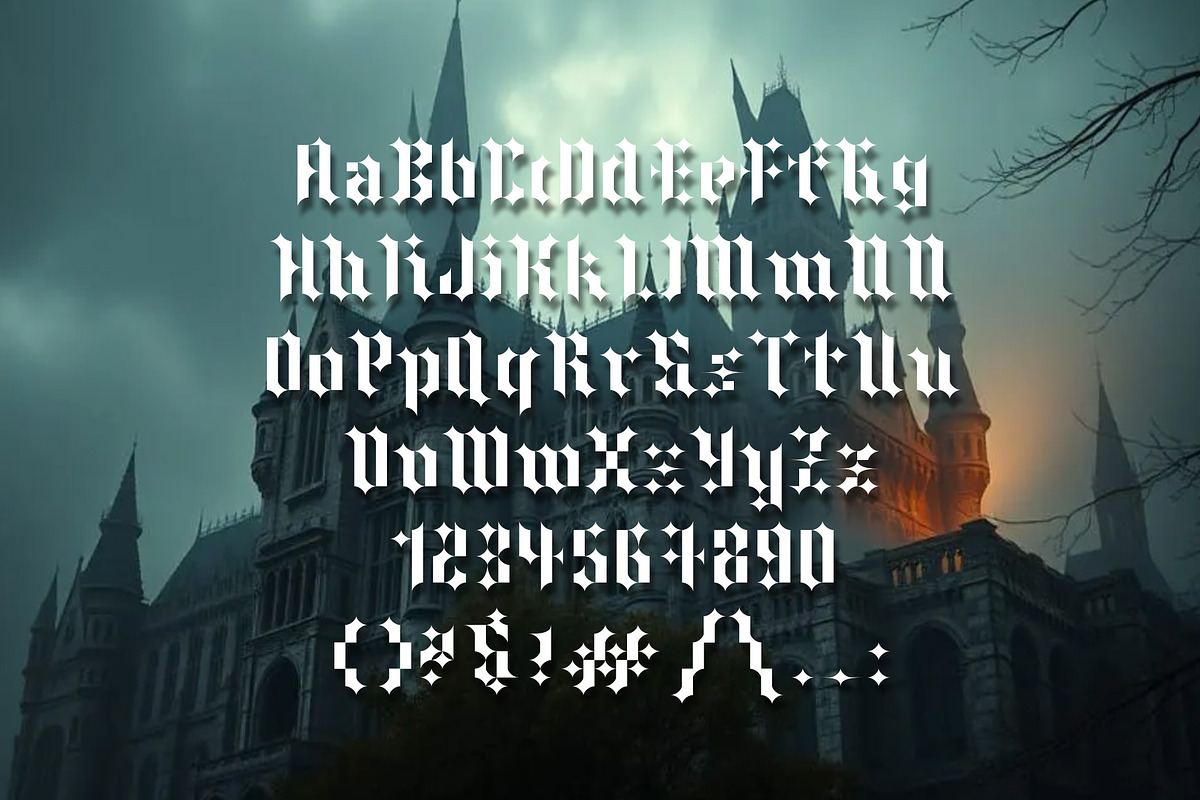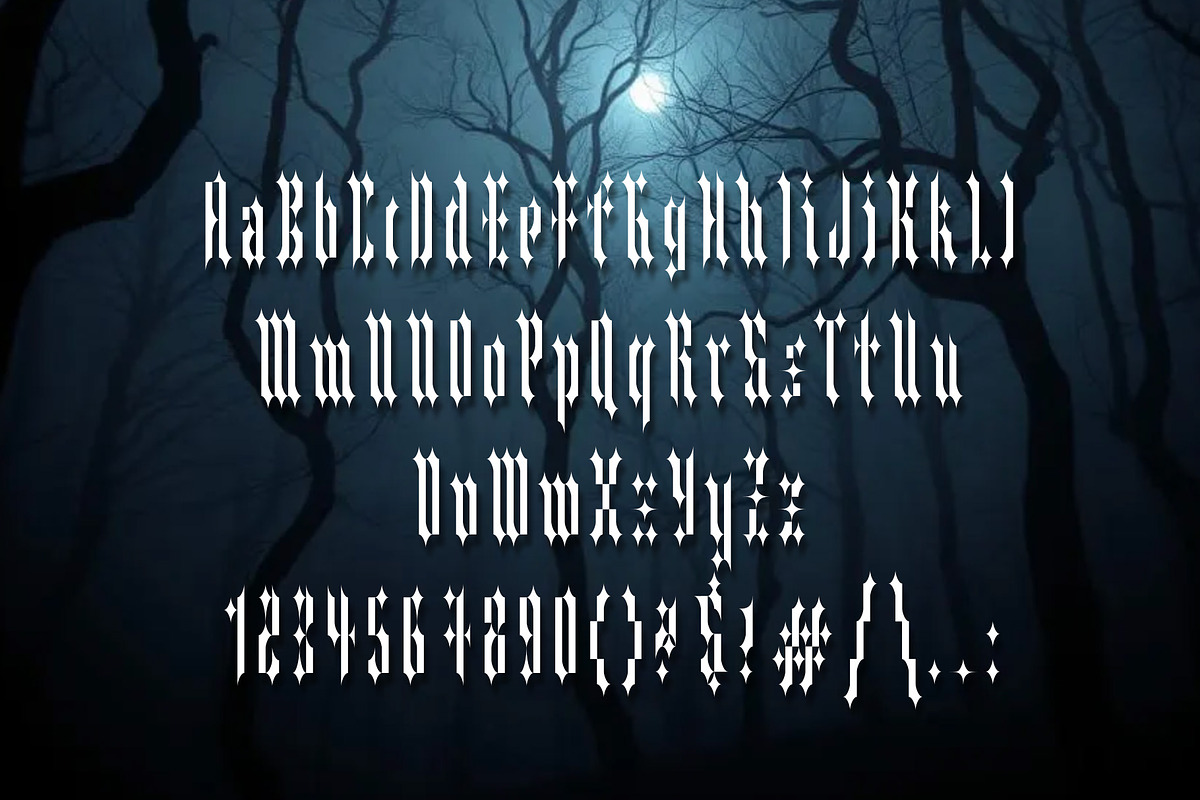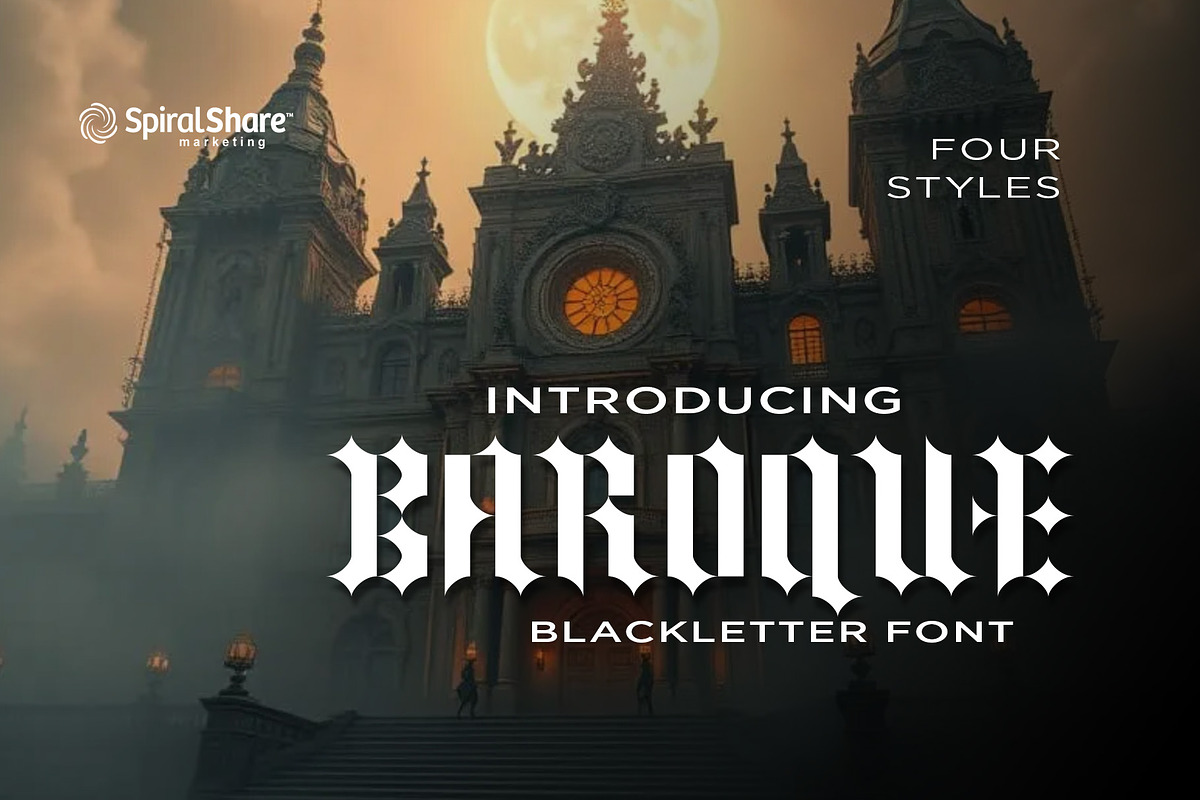
Baroque Blackletter Font
BAROQUE is a dark elegant gothic blackletter font . Perfect for horror designs, vintage posters, book covers, branding, and more—embrace timeless gothic style today!
Four Styles: Tall, Tall Italic, Wide,Wide Italic